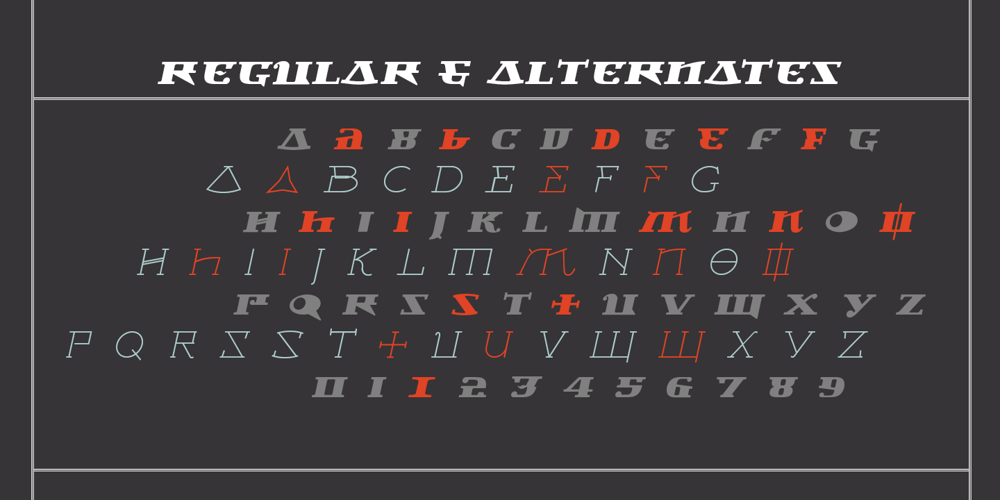
Newspeak Font Family was designed by Jonathan Barnbrook and published by Barnbrook Fonts. Newspeak contains 2 styles and family package options. Newspeak is a display typeface based upon Soviet architectural forms from the Stalinist period (spanning the 1930s—’50s). Stalinist architecture is now considered unsightly and without aesthetic merit, yet it has a strange beauty, hinting at an unrealised utopia (while its function was to buttress a brutal dictatorship). Inspiration was also drawn from the Cyrillic alphabet which, to kids growing up in Western Europe in the ’70s and ’80s, was a cipher for an alternative way of living – Cyrillic letterforms represented the exotic, familiarity-twice-removed universe of Eastern Bloc states. When you visited a communist country you were confronted with unfamiliar typography that reinforced your sense of alienation and unease that there existed a real, if imperfect, working alternative to consumerism.